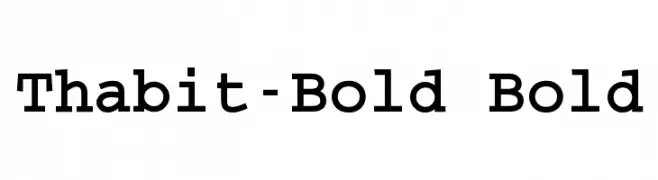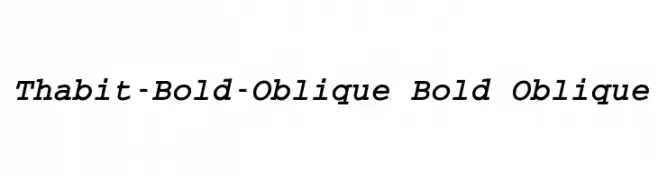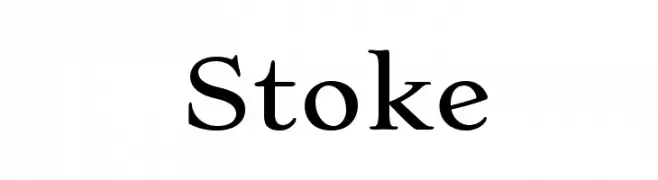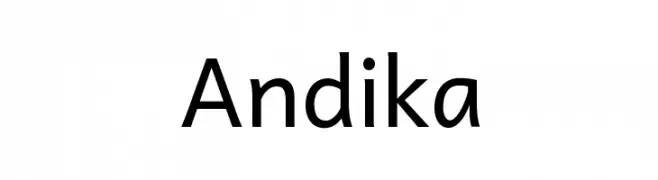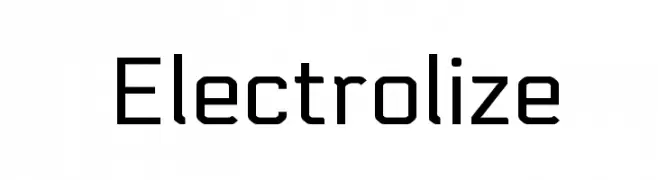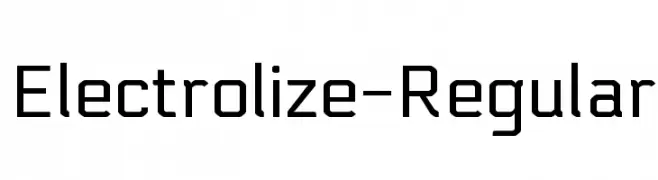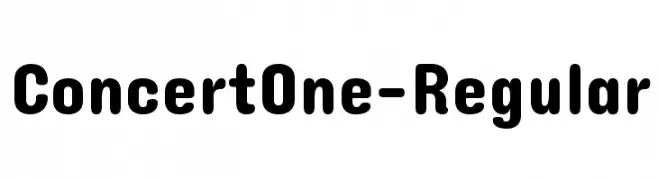
A bold slab serif font with strong serifs and uniform strokes.
A bold, oblique font with consistent stroke thickness and a modern slant.
A classic serif font with elegant strokes and moderate contrast, ideal for refined and sophisticated designs.
A clean, readable font with consistent stroke thickness and balanced spacing.
A bold, robust font with strong strokes and elegant curves, ideal for headlines.
A bold, robust font with strong strokes and a modern yet timeless design.
A modern, geometric sans-serif font with a clean, technical appearance.
A modern, geometric font with a technical and sleek design.
A bold, dripping font perfect for spooky or Halloween-themed designs.
A bold, rounded font with a friendly and modern appearance.